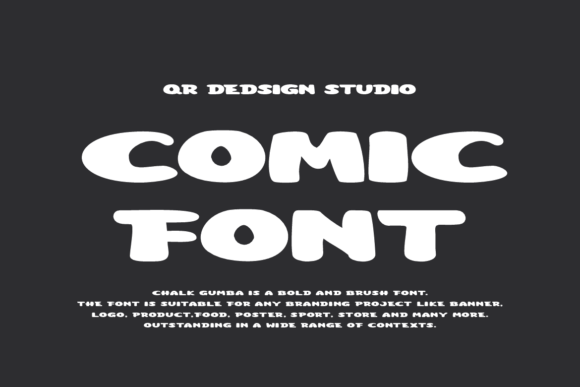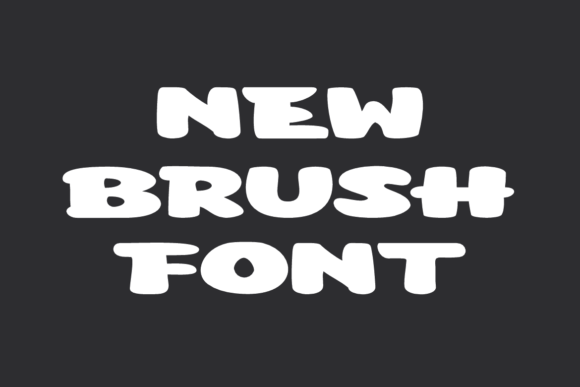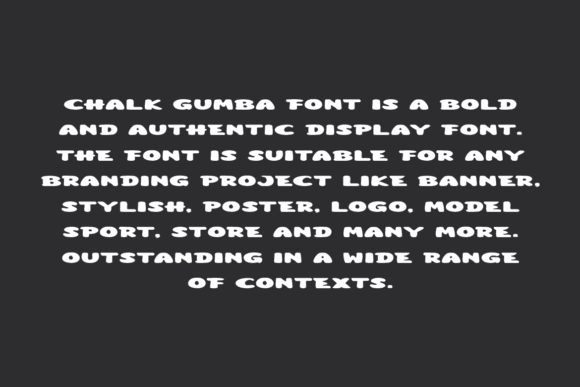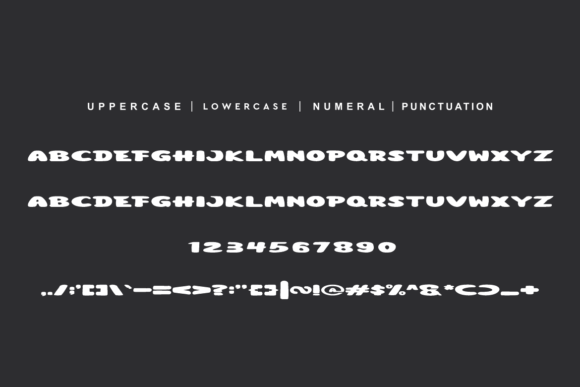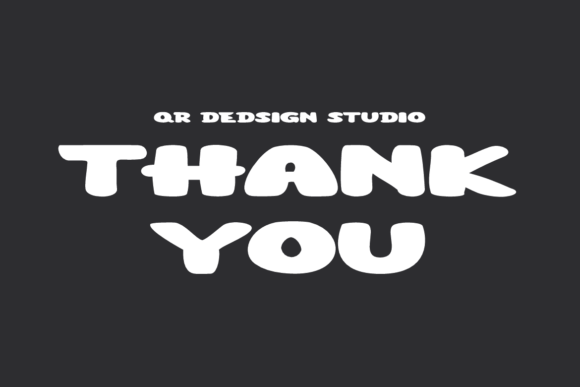
Introduction to Chalk Gumba Font
Chalk Gumba is a childish, easy-to-read display font that conveys impeccable friendliness.
Whether you’re using it for crafts, digital design, presentations, or making greeting cards, this font has the potential to become your favorite go-to font, no matter the occasion .
Key Features of Chalk Gumba Font